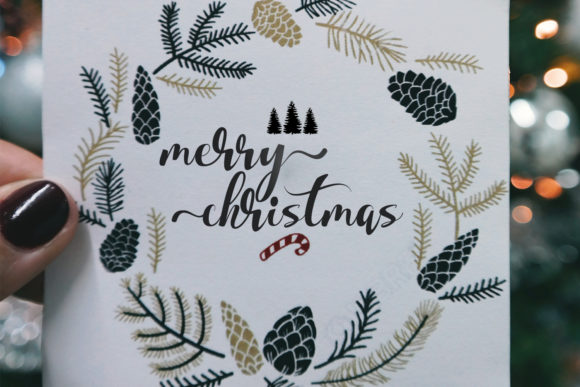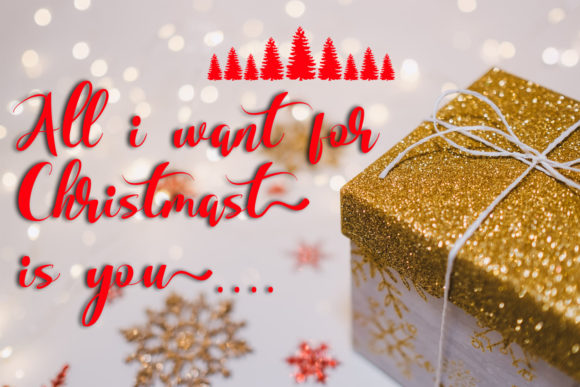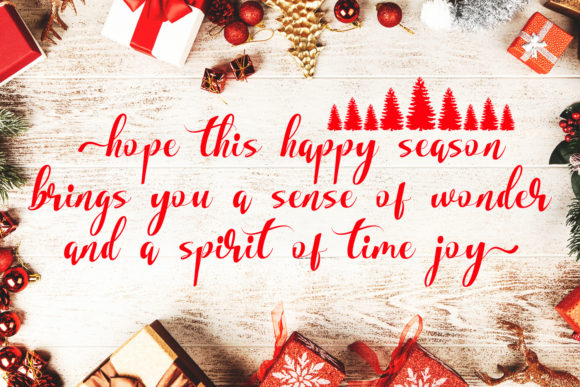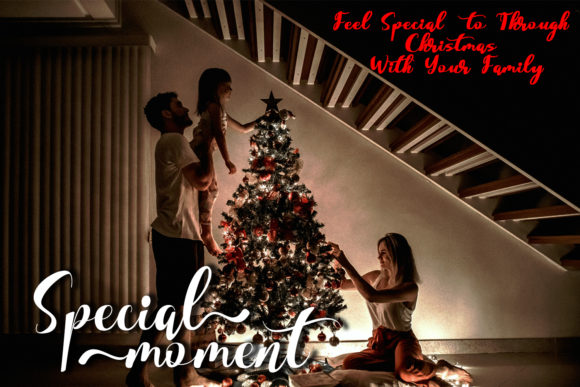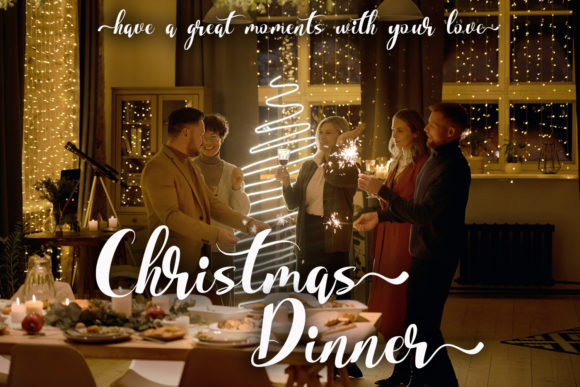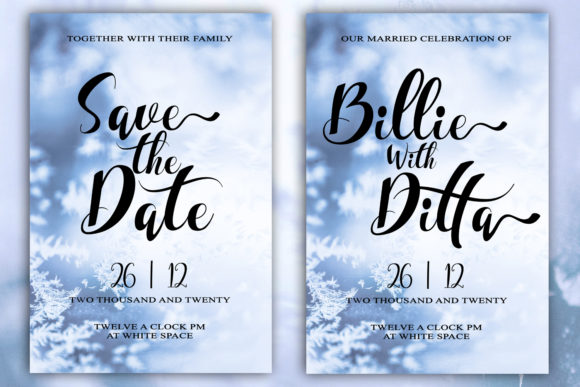
Introduction to Differently Christmas Font
Differently Christmas is a delicate, fresh, rich, and elegant handwritten font.
It is ideal for holiday-themed greeting cards and for any crafting project that requires a warm touch It is PUA encoded which means you can access all of the glyphs and swashes with ease.